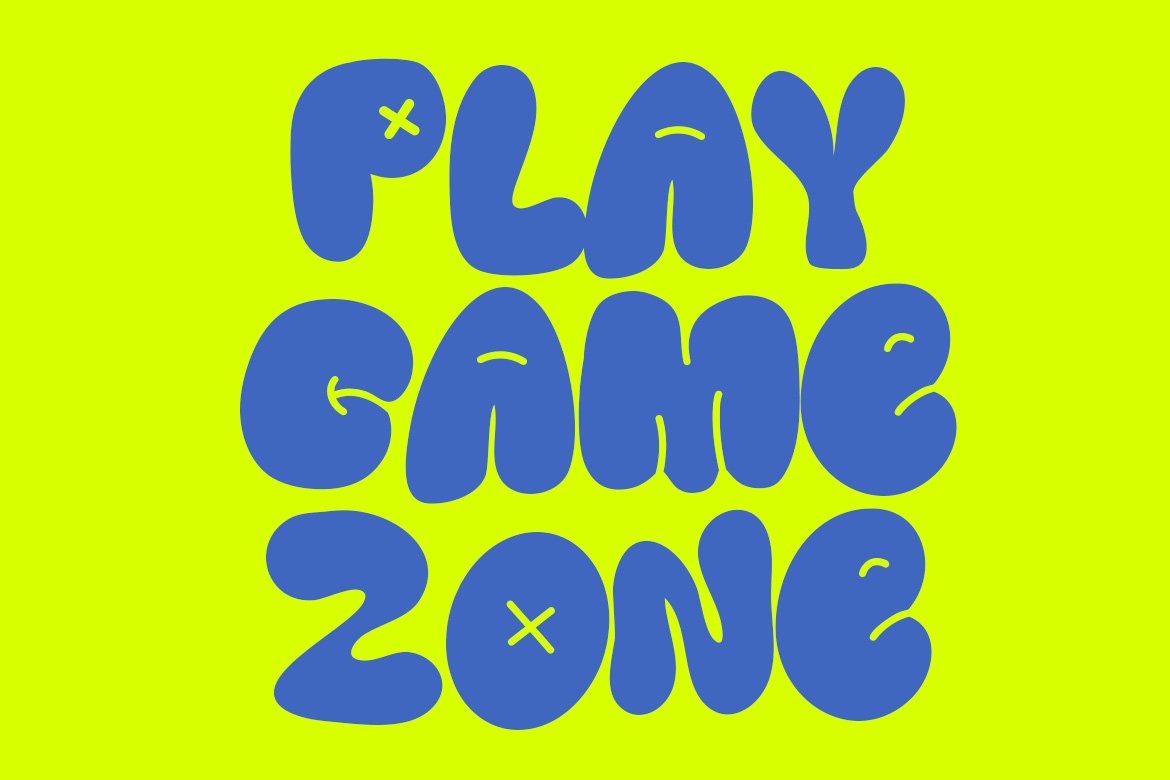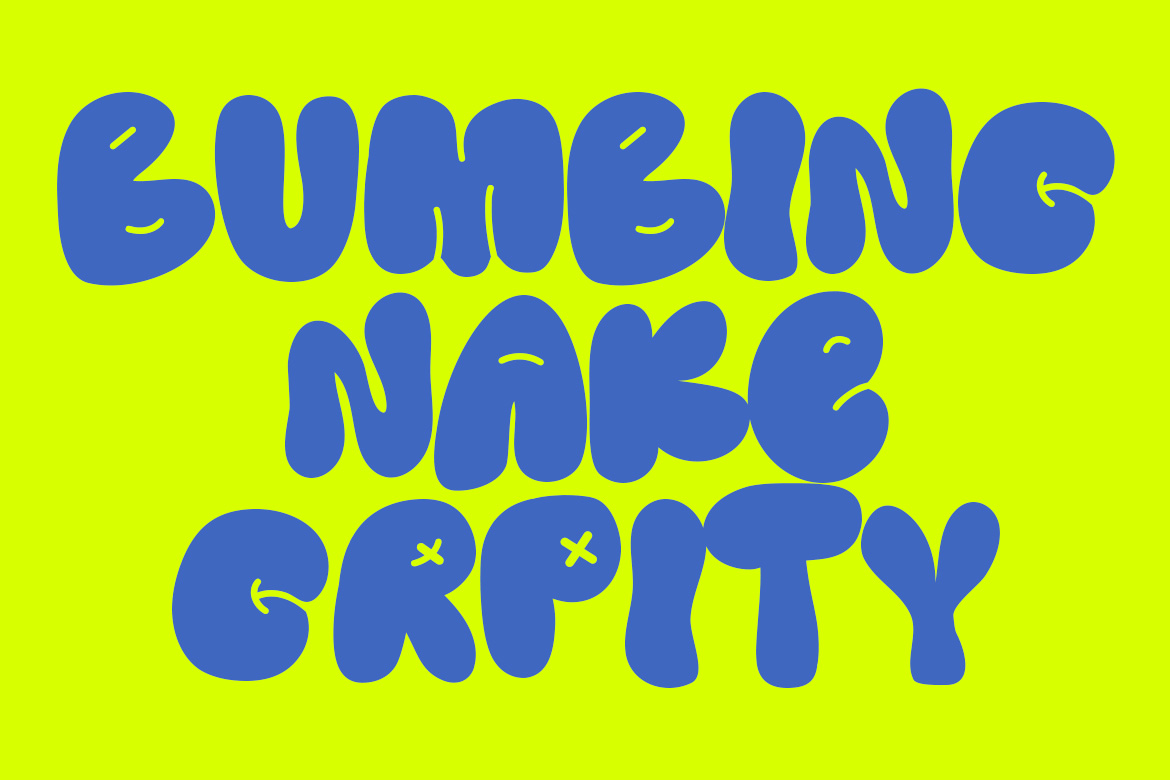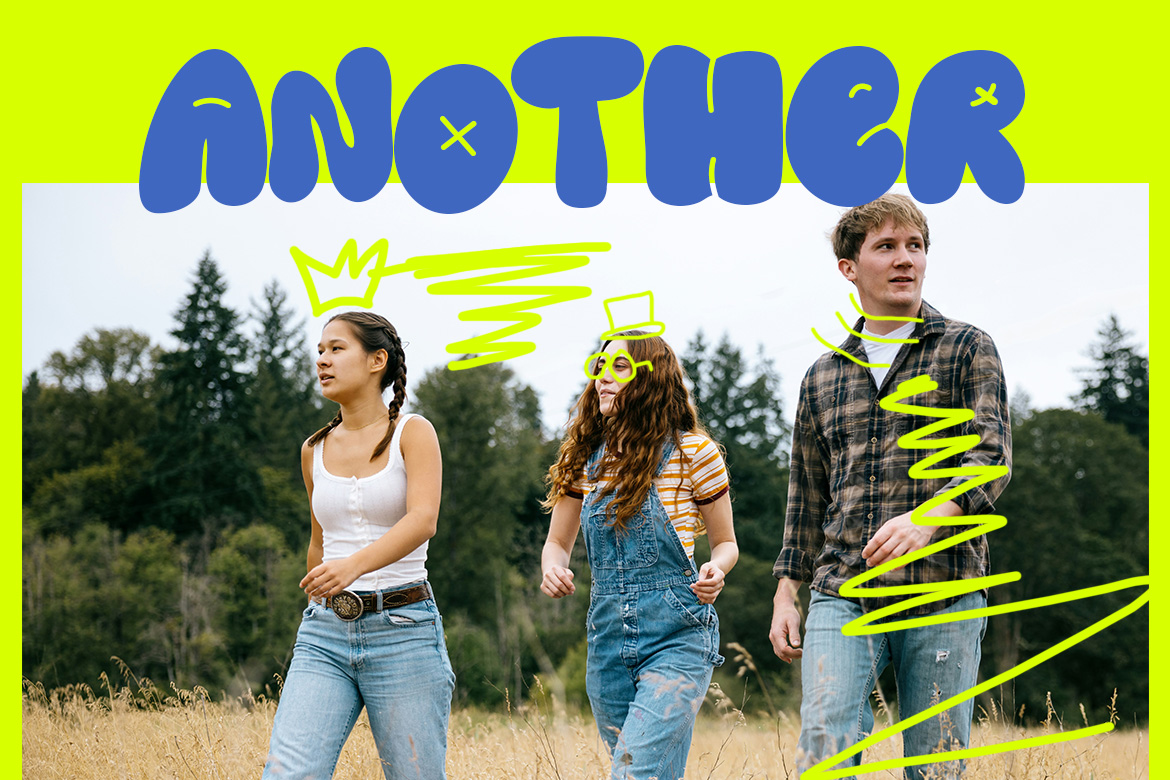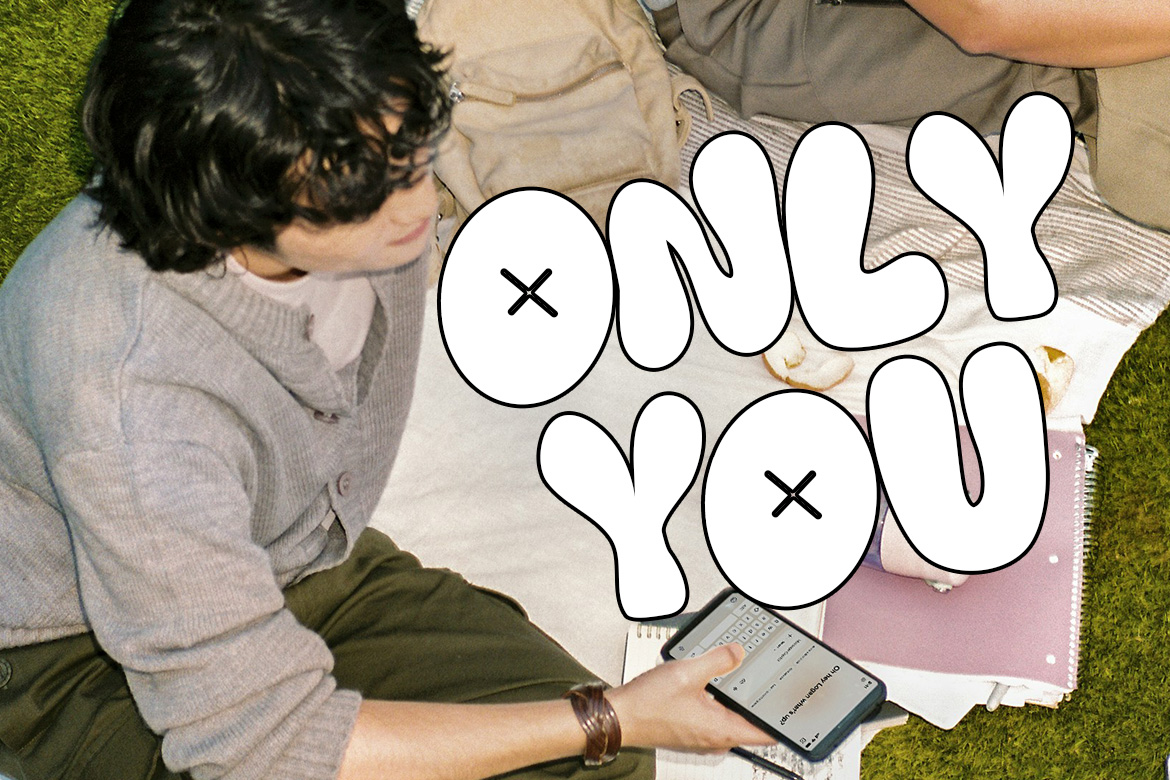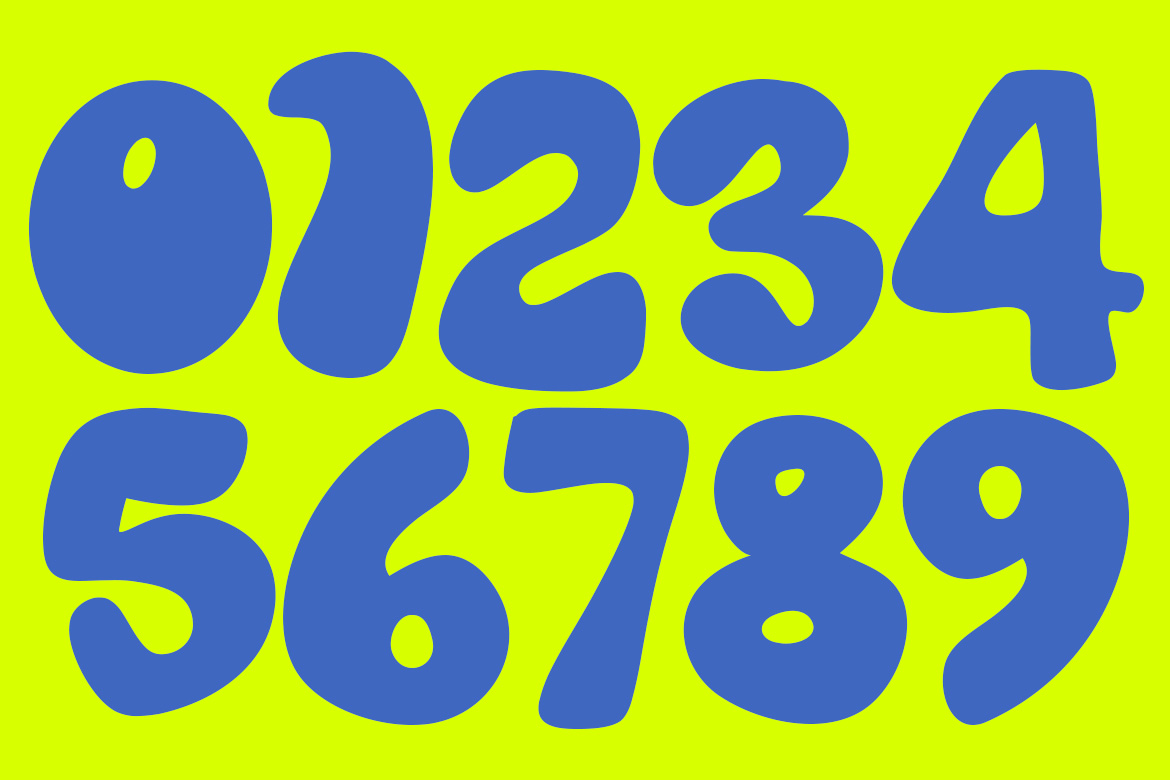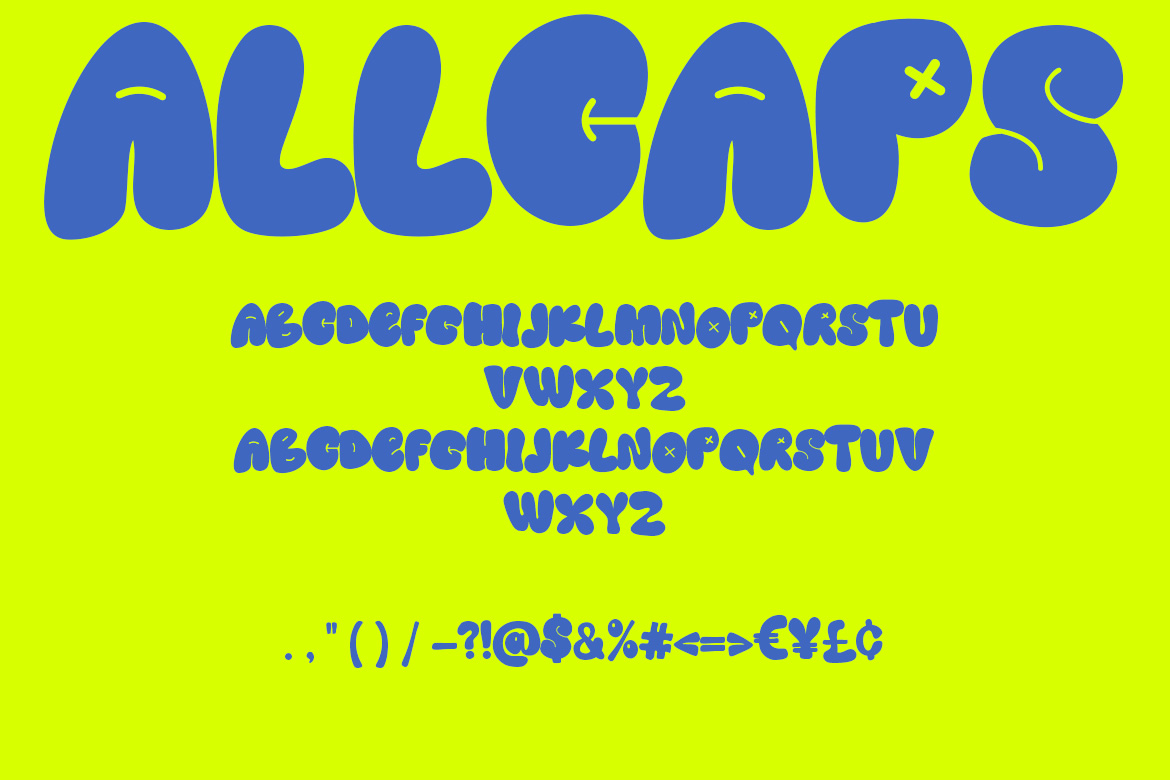
Bloob Bungo
This font features extremely heavy, rounded letterforms that mimic the appearance of inflated balloons or liquid blobs. The strokes are uniform in their immense thickness, leaving very little counters or negative space within the glyphs. Characterized by soft, bulbous terminals and a lack of sharp angles, the design incorporates playful decorative elements In Package : OTF TTF WOFF WOFF2 Feature : Uppercase (All Caps) Numerals Punctuation Easy To Install Thank you for choosing this font!